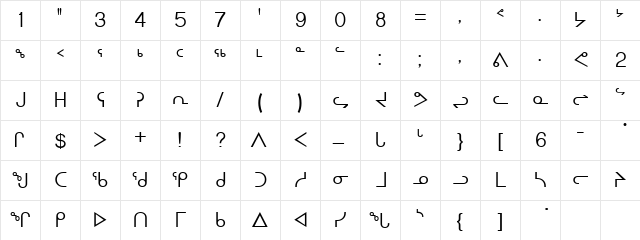
OldSyl Regular Font Preview
OldSyl Regular
OldSyl Regular Font Details
Design Context for OldSyl Typeface
OldSyl takes a measured approach to typography — its balanced proportions and neutral character make it a reliable workhorse for both digital and print work.